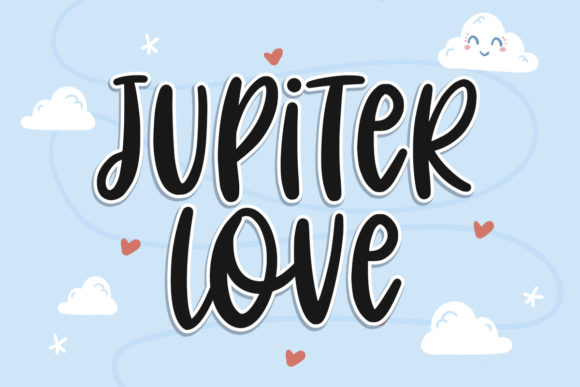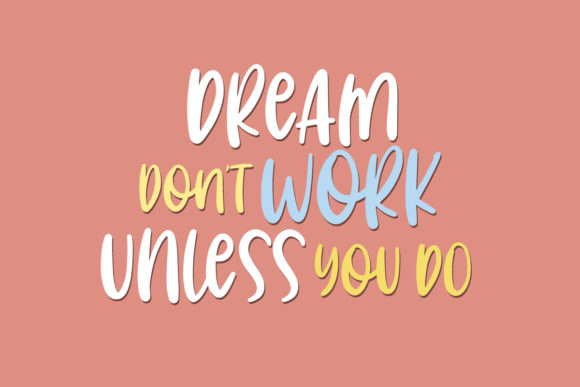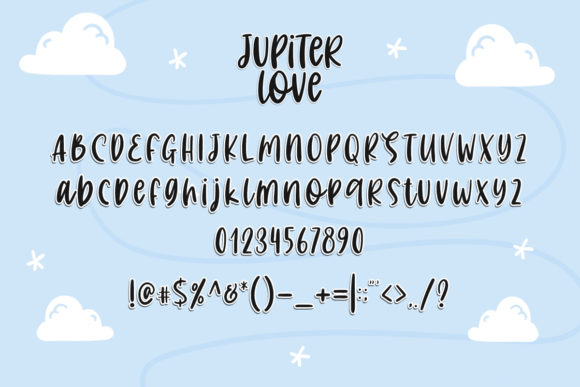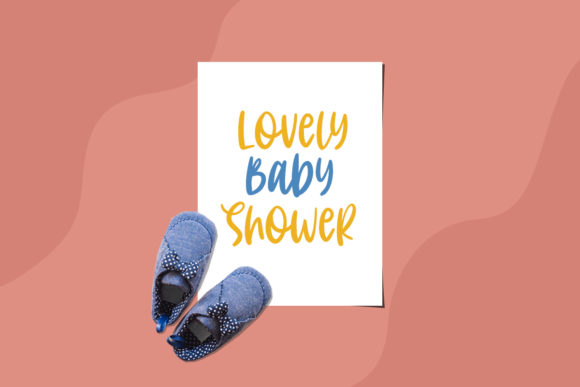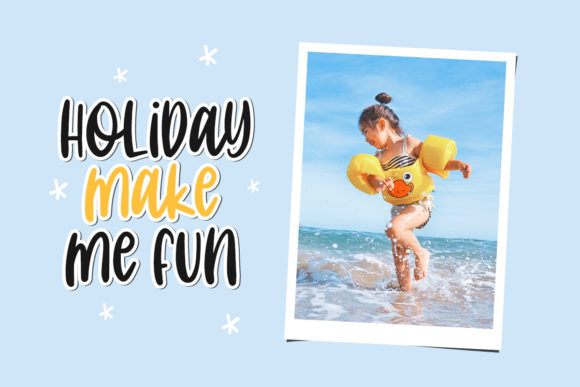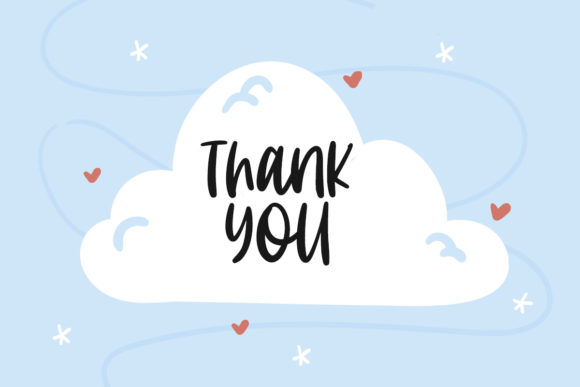
Jupiter Love Font
About Jupiter Love Font
Jupiter Love is a cute handwritten font, carefully handcrafted to become a true favorite. This font will look outstanding in any context, whether it’s being used on busy backgrounds or as a standalone headline!